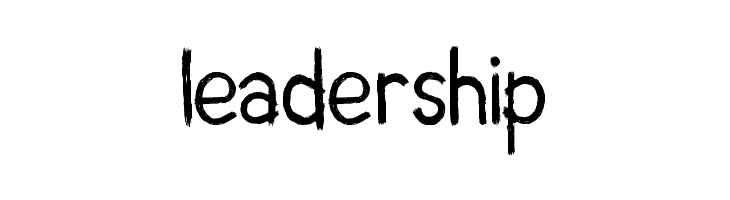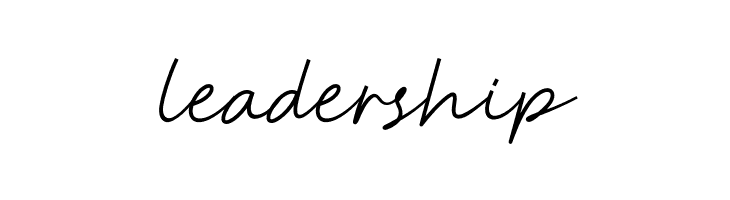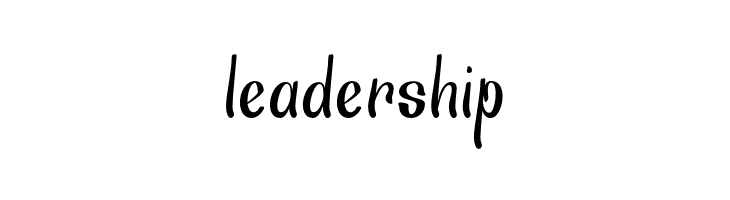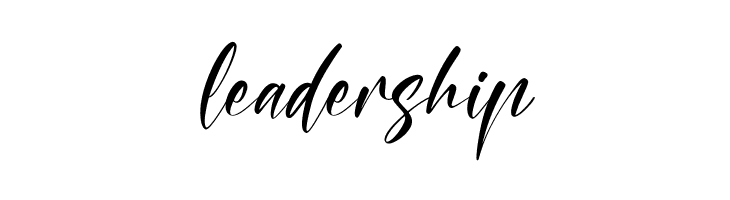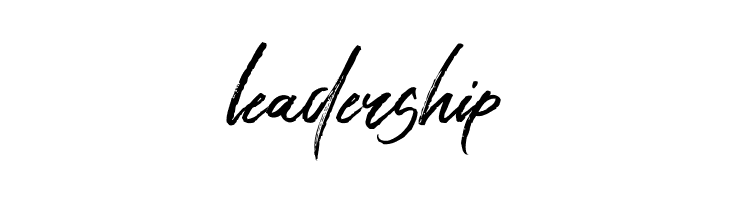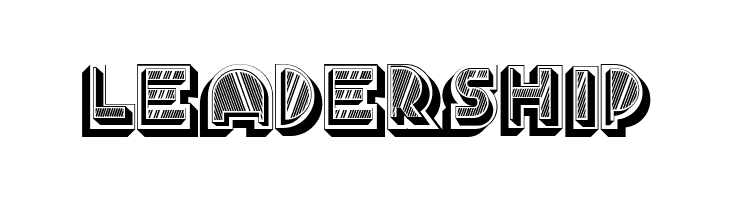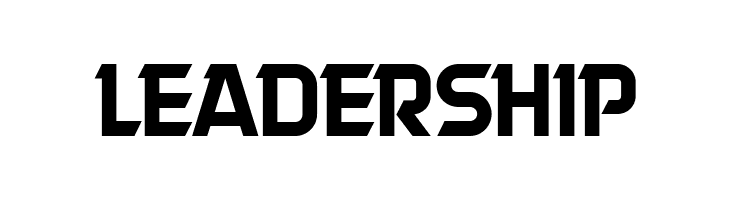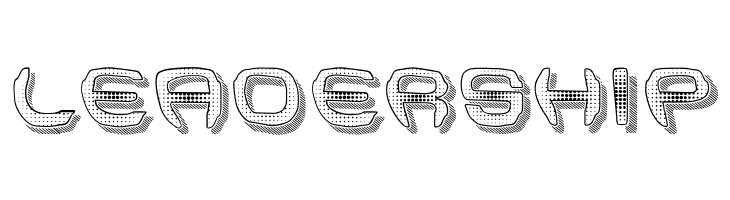
• Another Handwritting Regular
A playful, casual handwritten font with rounded, consistent strokes.
• Another Love
A graceful script font with fluid, interconnected strokes and a romantic flair.
• Another Monday DEMO Regular
A playful, casual handwritten font with smooth, flowing lines.
• another shabby
A bold, energetic script font with a dynamic, handwritten style.
• Another shabby Bold
A bold, brush-style font with dynamic strokes and a playful, informal vibe.
• Another shabby Heavy
A bold, dynamic script font with a handwritten, fluid style.
• Another shabby Light
A playful, handwritten font with bold strokes and a dynamic slant.
• Another Tag
A bold, graffiti-style font with angular strokes and dynamic flow.
• Another Tag
A bold, graffiti-style font with dynamic, energetic strokes.
• Another Xanadu
( TwoNineFive - Maximillian Limpo )
A bold, geometric font with a digital, pixelated style.
• AnotherLine
A geometric and angular font with a futuristic and modern style.
• AnotherParty
An intricate and artistic font with swirling, elongated strokes and decorative flourishes.
• AnotherRegular
A playful, rounded font with consistent stroke width and a modern, approachable style.
• AnotherScream
A jagged, edgy font with irregular strokes and a hand-drawn appearance.
• AnotherStudent
A bold, playful, and hand-drawn font with a friendly and decorative style.
• Anoxic Light
A modern, geometric font with a clean and minimalistic design.
• Anoxic Light Oblique
A modern, geometric, and oblique font with a futuristic style.
• Anoxic Outline Medium
A modern, geometric outline font with a tech-inspired aesthetic.
• Anoxic SC Medium
A futuristic, geometric font with rounded edges and uniform stroke width.
• Ansagia Metta
A decorative script font with elegant, flowing curves and ornate details.